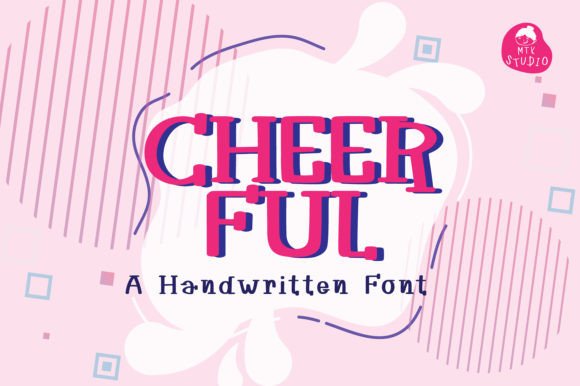
Introducing Cheerful Font: The Ultimate Addition to Your Creative Projects
Are you tired of using the same old fonts in your designs? Do you want to add a touch of whimsy and fun to your creative projects? Look no further than Cheerful Font! This fun and quirky display font is the perfect way to add some personality to your designs and make them stand out from the crowd.
What is Cheerful Font?
Cheerful Font is a unique and playful display font that is sure to bring a smile to your face. With its bold and bubbly letters, this font is perfect for adding a touch of fun and whimsy to any design project. Whether you’re working on a logo, a poster, or a social media graphic, Cheerful Font is the perfect choice.
Key Features of Cheerful Font
- Fun and quirky design: Cheerful Font is designed to be playful and fun, making it perfect for creative projects that need a bit of personality.
- Bold and bubbly letters: The bold and bubbly letters in Cheerful Font are sure to grab attention and add a touch of whimsy to your designs.
- Display font: Cheerful Font is a display font, making it perfect for headlines, titles, and other prominent text elements.
How to Use Cheerful Font in Your Creative Projects
Using Cheerful Font in your creative projects is easy! Here are a few ways you can incorporate this fun font into your designs:
- Logos and branding: Add a touch of whimsy to your logo or branding with Cheerful Font.
- Posters and flyers: Use Cheerful Font to create eye-catching posters and flyers that are sure to grab attention.
- Social media graphics: Add a touch of personality to your social media graphics with Cheerful Font.
- Invitations and cards: Use Cheerful Font to create fun and playful invitations and cards.
Benefits of Using Cheerful Font
There are many benefits to using Cheerful Font in your creative projects. Here are a few:
- Adds personality to your designs: Cheerful Font is a great way to add some personality to your designs and make them stand out from the crowd.
- Grabs attention: The bold and bubbly letters in Cheerful Font are sure to grab attention and draw the eye.
- Versatile: Cheerful Font can be used in a variety of creative projects, from logos and branding to posters and social media graphics.
Tips for Getting the Most Out of Cheerful Font
Here are a few tips for getting the most out of Cheerful Font:
- Use it sparingly: While Cheerful Font is a fun and playful font, it can be overwhelming if used too much. Use it sparingly to add a touch of whimsy to your designs.
- Pair it with other fonts: Cheerful Font pairs well with other fonts, such as serif and sans-serif fonts. Experiment with different pairings to find the one that works best for your design.
- Experiment with colors: Cheerful Font looks great in a variety of colors. Experiment with different colors to find the one that works best for your design.
Cheerful Font is a fun and quirky display font that is sure to add a touch of whimsy to your creative projects. With its bold and bubbly letters, this font is perfect for adding some personality to your designs and making them stand out from the crowd. Whether you’re a designer, crafter, or DIY enthusiast, Cheerful Font is a great addition to your font collection.